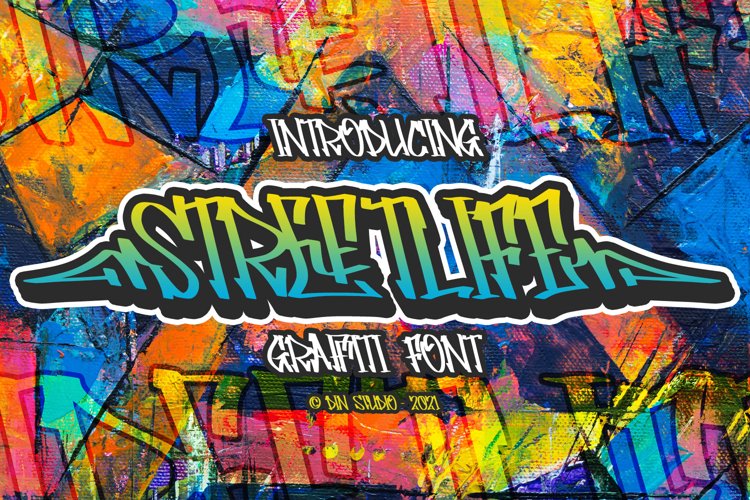
Have you been looking for a graffiti font? Do you dream of creating headings that stand out and inspire modern and artistic?
Introducing Streetlife - A Grafiti Font
Make your graffiti text dance with this wonderful, rhythmic font that captures motion and is bound to call attention wherever you use it. This font is perfect for logos, printed quotes, cards, packaging, website or social media branding, and many more!